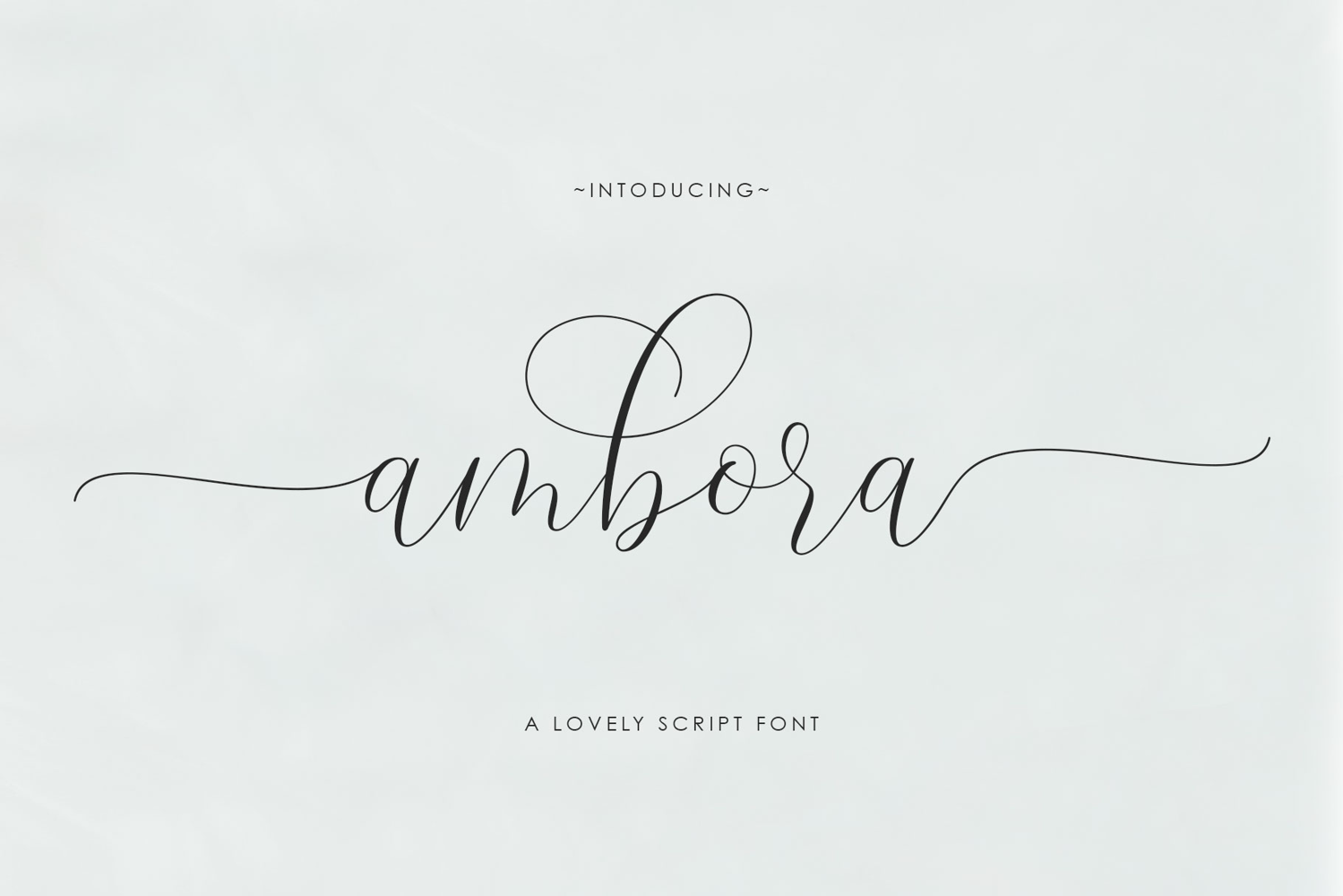
Ambora Script
Ambora
Ambora Script is a very beautiful and interesting script, and comes with a perfect line for use for various purposes. Like titles, signatures, logos, correspondence, wedding invitations, letterheads, nameplate, labels, bulletins, posters, badges, Branding, Greeting Cards, etc.
Ambora Script is built with OpenType features and includes start and end. It comes with OpenType Stylistice set, Initial, swashes, ligatures and everything to add a touch to your design and also supports other languages :)